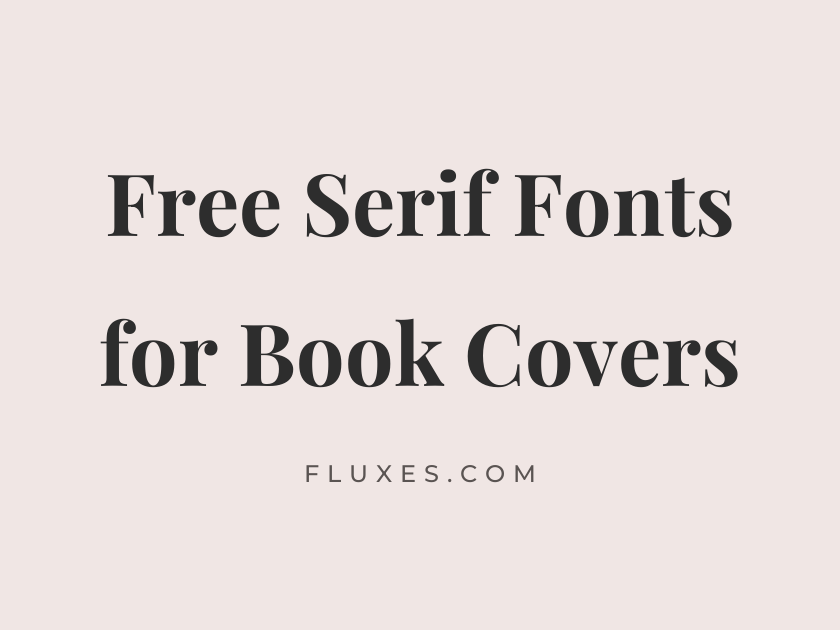
64 Best Free Serif Fonts for Book Covers
Choosing a typeface for a book cover is one of the highest-leverage design decisions a designer or self-published author will make. Serif fonts carry centuries of association with the printed page, and the right one can signal genre, era, and mood before a reader reads a single word of the blurb. This roundup pulls together free serif fonts from Google Fonts that hold up at cover scale, from hairline literary romans to blackletter display faces built for gothic horror.
Whether you are designing a quiet literary novel, a sweeping fantasy epic, a cozy romance, or a nonfiction title that needs to look credible on a shelf, there is a serif here suited to the job. Each one is free to download and license for commercial book design, so you can test them directly against your title and author name before committing.
1. Playfair Display
Playfair Display is the reigning favorite for literary fiction and upmarket romance covers, and for good reason. Its high contrast strokes and sharp, almost engraved terminals give titles an instant sense of prestige, echoing the classic didone type used on prize-winning hardbacks for decades.
It is legible at large display sizes but starts to lose its crisp hairlines when shrunk down for thumbnails, so keep titles short or bump up the size for online store listings. Pair it with EB Garamond or Lora for interior body text and back-cover copy.
2. EB Garamond
Few free fonts carry the warmth of old-style book printing like EB Garamond. Modeled on the sixteenth-century types of Claude Garamont, it feels handset and humane, ideal for historical fiction, literary reprints, and classic titles being reissued with a fresh cover.
Because it was drawn with long-form reading in mind, it also doubles as a dependable choice for interior typesetting, meaning a whole book can share one typographic voice from cover to colophon.
3. Libre Baskerville
Libre Baskerville was reworked specifically for screen legibility, which makes it a safe, trustworthy pick for author websites and ebook covers alike. It reads as serious and literary without tipping into stuffiness.
4. Baskervville
A more faithful revival of Baskerville’s original transitional forms than its cousin above, Baskervville leans softer and more romantic, with delicate italics that suit epistolary novels and quiet family dramas.
5. Lora
Lora balances calligraphic roots with sturdy, contemporary proportions, making it one of the most versatile serifs for both cover titling and back-matter text. It works especially well on rural and pastoral fiction covers.
6. Merriweather
Merriweather was built for screens first, so it holds its shape remarkably well at the small sizes retailers use for online thumbnails. Its sturdy, slightly condensed letterforms give memoir and nonfiction titles a grounded, trustworthy feel.
It is not the most elegant serif on this list, and it can look plain on a cover that wants drama, but that plainness is exactly what makes it dependable for subtitles, author names, and any text that has to stay readable no matter how small it gets rendered.
7. PT Serif
Originally commissioned for Russian public signage, PT Serif carries a clear, no-nonsense structure that reads well in both title and body settings, a solid utility choice for self-published nonfiction.
8. Bitter
Bitter’s slab serifs have just enough weight and squared-off character to suit true crime and investigative nonfiction covers, where a title needs to feel authoritative rather than decorative.
9. Crimson Text
Crimson Text was designed as a free alternative to Garamond-style book fonts, and it shows in its restrained, printerly proportions. It suits poetry collections and quiet literary fiction that wants typography to stay out of the way.
10. Crimson Pro
The updated variable sibling of Crimson Text, Crimson Pro offers a wider weight range that makes it easier to build a full typographic hierarchy from cover title down to back-cover copy without introducing a second family.
11. Vollkorn
Vollkorn means “wholegrain” in German, and the name fits: it is sturdy, warm, and a little rustic, flattering for small-town sagas and literary fiction set in close-knit communities.
12. Source Serif 4
Adobe’s Source Serif 4 is engineered to pair cleanly with Source Sans, which makes it a practical anchor for nonfiction series covers that need consistent typography across many titles.
13. Noto Serif
Letters From a Country That No Longer Exists
Part of Google’s sprawling Noto project, this serif was built for extensive language coverage, a genuine advantage for translated fiction or covers that need to support diacritics and non-Latin scripts alongside English titling.
14. Spectral
A Diary Found in the Attic
Spectral was drawn for on-screen reading, with a calm, slightly cool rhythm that suits contemplative literary fiction and essay collections. Its medium weight in particular looks composed on minimalist cover layouts.
15. Domine
The Weight of Everything We Owned
Domine is a compact, sturdy serif built specifically for headline use, which makes it a reliable pick when a title needs presence but the layout leaves little vertical room to work with.
16. Cardo
Myths Older Than the Mountains Themselves
With roots in classical philology typefaces, Cardo has an academic, ancient-text feel that suits mythology retellings, classics in translation, and scholarly nonfiction. Its generous italics are worth using for subtitles.
• Language support: Latin, Latin Extended, Gothic, Greek, Greek Extended, Hebrew, Old Italic, Runic
17. Old Standard TT
A Correspondence Across Two World Wars
Old Standard TT revives early twentieth-century academic typography and wears its age proudly, with slightly irregular details that suit archival nonfiction, wartime fiction, and biography.
18. Alegreya
The Poet Who Refused to Be Silenced
Alegreya was originally commissioned for literary use, and its calligraphic, humanist rhythm still reads as distinctly bookish. It has a lively, almost theatrical energy that flatters poetry and character-driven literary fiction.
19. IM Fell English
An Account of the Salem Trials
IM Fell English
Digitized from historical specimens of English printing types, IM Fell English carries genuine period texture, uneven, ink-trapped, and slightly worn. It is a strong match for colonial history, gothic fiction, and any cover chasing an antiquarian look, though its idiosyncrasies make it a poor choice for long body copy.
20. Prata
The Heiress and the Empty Estate
Prata’s tall, fine-boned letterforms have a jewelry-catalogue elegance that suits upmarket romance and glamorous historical fiction, especially set large against a lot of negative space.
21. Cinzel
An Empire Built on Broken Oaths
Inspired by classical Roman capitals cut into stone, Cinzel brings an inscriptional grandeur that works beautifully for historical epics, mythology, and epic fantasy series titling. It is set in capitals only, so it should be reserved for short titles rather than long sentences.
Its formality also makes it a natural fit for nonfiction on ancient history, classics, or philosophy, where a cover benefits from looking carved rather than printed.
22. Cinzel Decorative
The Crown That Demanded Blood
The ornamented cousin of Cinzel adds flared serifs and decorative flourishes that suit fantasy romance and richly art-directed epic fantasy covers, though it is best used sparingly, on a single word or short title, since the ornamentation gets noisy in longer settings.
23. Marcellus
Gods, Ghosts, and the Space Between
Marcellus is quieter and more restrained than most classical-revival serifs, with a smooth, understated elegance that suits speculative fiction covers wanting gravity without shouting.
24. Rozha One
A Kingdom Carved From Ash
Rozha One fuses Devanagari-inspired curves with a serif structure, giving it a distinctive, slightly exotic character that stands out on fantasy and cross-cultural literary fiction covers.
25. Yeseva One
She Wore Her Sorrow Like a Crown
Yeseva One has a bold, feminine curviness that has become a familiar favorite on wedding stationery, and that same warmth translates nicely to romance and women’s fiction titling.
26. Fraunces
A Love Story Told Backwards
Fraunces is one of the more expressive serifs to arrive on Google Fonts in recent years, with a soft, wet-ink quality in its curves that feels handcrafted rather than mechanical. Its adjustable optical size and “wonky” alternate styles give designers real range, from a restrained upmarket romance cover to something playful and illustrative for contemporary fiction.
Because it spans such a wide personality range within one family, Fraunces is worth trying before reaching for a second display face; it may cover both the title and a supporting tagline on its own.
27. Bodoni Moda
The Socialite Who Vanished at Midnight
This modern variable revival of Bodoni brings back the extreme thick-thin contrast of high-fashion editorial type, which suits glamorous thrillers, celebrity memoirs, and anything set in the world of fashion or old Hollywood. Keep it large; that contrast disappears into a blur at small sizes.
28. Abril Fatface
The Party That Ended in Scandal
Abril Fatface is unapologetically heavy and theatrical, built for magazine covers and equally at home on commercial women’s fiction and bold nonfiction titles that want to dominate a shelf.
29. Unna
Recipes From My Grandmother's Kitchen
Unna
Unna has a cozy, storybook charm somewhere between a serif and a slab, suiting cookbooks, memoir, and gentle contemporary fiction that wants warmth over drama.
30. Gilda Display
The Actress Who Rewrote Her Own Ending
Gilda Display
Gilda Display carries a vintage, art-deco-adjacent glamour reminiscent of old film posters, a strong fit for historical fiction set in the twentieth century.
31. Petrona
Whispers Behind the Manor Walls
Petrona
Petrona reads as refined and slightly formal without the extreme contrast of a didone, making it a flexible option for gothic romance and historical mystery covers that need elegance at moderate sizes.
32. Frank Ruhl Libre
A Family History Written in Silence
Originating from a classic Hebrew typeface tradition, Frank Ruhl Libre has a distinctive, slightly angular warmth that suits literary fiction, family sagas, and books exploring cultural identity.
• Styles: 7 weights (Light to Black)
33. Literata
Every Ending Hides a Beginning
Literata
Designed by Google specifically for ebook reading, Literata is a dependable, screen-friendly serif that looks equally composed on a printed spine and a Kindle thumbnail, a genuinely practical choice for indie authors publishing across formats.
34. Piazzolla
The Tango That Started It All
Piazzolla
Piazzolla has a warm, slightly rounded Latin American character, fitting for novels set in South America or stories built around music and dance.
35. Zilla Slab
The Startup That Broke the Rules
Zilla Slab’s confident, squared-off letterforms give business and self-help nonfiction covers a modern, competent feel without drifting into corporate blandness.
36. Arvo
Field Notes From the Edge of the World
Arvo is a geometric slab with a friendly, slightly retro feel, well suited to travel writing, adventure memoir, and outdoor-themed nonfiction.
37. Rokkitt
Lessons I Learned the Hard Way
Rokkitt
Rokkitt’s rounded slab serifs feel approachable and conversational, a comfortable match for self-help and personal-development titles that want authority without severity.
38. Aleo
The Truth About Making It on Your Own
Aleo
Aleo pairs slab sturdiness with slightly humanist curves, giving it a versatile, businesslike warmth useful for entrepreneurship and career nonfiction covers.
39. Vidaloka
The Detective's Last Unsolved Case
Vidaloka
Vidaloka has a moody, noir-inflected elegance, its slightly condensed capitals and dark strokes feel right at home on hardboiled crime fiction and detective series covers.
40. Amiri
A Thousand Nights of Untold Stories
Amiri
Amiri is a classical Arabic typeface with a Latin companion set, offering genuine calligraphic authority for stories rooted in Middle Eastern or Islamic history, folklore, and culture.
• Language support: Latin, Latin Extended, Arabic
41. Gentium Book Plus
A Language on the Verge of Extinction
Gentium Book Plus
Built originally for multilingual scholarly publishing, Gentium Book Plus has broad script support and a warm, readable structure, a practical choice for linguistics, anthropology, and translated literature.
42. Neuton
What the River Remembered
Neuton
Neuton’s wide range of weights, from feather-light to near-black, gives it real flexibility for building a full cover hierarchy from title to tagline within one family.
• Styles: 6 styles (5 weights plus italics)
43. Bree Serif
Adventures of a Reluctant Hero
Bree Serif
Bree Serif has a rounded, friendly informality that suits middle-grade fiction and light contemporary novels aimed at younger or crossover readers.
44. Sorts Mill Goudy
The Printer's Daughter
Sorts Mill Goudy
Named for Frederic Goudy, this revival channels his warm, slightly irregular old-style forms, a fitting choice for books about printing, publishing, or the history of the written word itself.
45. Goudy Bookletter 1911
Tales Collected by Firelight
Goudy Bookletter 1911
This is a close, freely licensed cousin to Goudy’s classic book types, carrying genuine early-twentieth-century book design character straight onto a modern cover.
46. Fanwood Text
A Scholar's Guide to Forgotten Places
Fanwood Text
Fanwood Text is a compact old-style serif well suited to academic nonfiction and reissued classics where the goal is understated authority rather than display drama.
47. Radley
The Letters She Never Answered
Radley
Radley’s delicate, slightly hand-drawn quality gives it a personal, diary-like intimacy that flatters quiet literary fiction and epistolary novels.
48. Caudex
Prophecies Written in a Dead Tongue
Caudex
Caudex has a slightly archaic, inscriptional feel that suits fantasy worldbuilding and ancient-history nonfiction alike, without tipping into the full theatricality of a fantasy display face.
• Language support: Latin, Latin Extended, Greek, Greek Extended, Runic, Vietnamese
49. Cambo
The Garden Where Time Stood Still
Cambo
Cambo is soft, rounded, and unhurried, an easy match for gentle literary fiction and pastoral memoir covers that favor calm over drama.
50. Kreon
Building a Life From the Ground Up
Kreon
Kreon’s clean, slightly geometric slab structure gives it a modern editorial feel, useful for contemporary nonfiction and biography covers that want a fresh, uncluttered look.
51. Bentham
A Philosophy for the Common Reader
Bentham
Bentham has a formal, almost legal-document precision, appropriate for philosophy, ethics, and political nonfiction that wants to look considered and serious.
52. Coustard
The Fighter Who Would Not Quit
Coustard
Coustard is heavy, blunt, and confident, a strong choice for sports memoir and underdog nonfiction where the title needs to hit hard on a crowded shelf.
• Styles: 2 weights (Regular, Black)
53. Amethysta
The Chemist's Forbidden Formula
Amethysta
Amethysta’s slightly rounded, old-style curves give it a warm scientific-journal quality, an interesting option for popular science covers that want approachability over sterility.
54. DM Serif Display
An Affair Kept in the Dark
DM Serif Display has a bold, fashionable didone contrast similar to Playfair Display but with slightly more compact proportions, useful when a title is long and space is tight.
55. DM Serif Text
Everything Her Mother Never Said
DM Serif Text
The text-optimized companion to the display cut above, this one holds up better at smaller sizes, making it a sensible choice for subtitles and back-cover blurbs that need to match the cover’s display type.
56. Lustria
The Botanist's Last Expedition
Lustria
Lustria has a crisp, slightly industrial old-style character reminiscent of early scientific printing, fitting for natural history and expedition narratives.
57. Metamorphous
The Sorcerer's Bargain With Death
Metamorphous
Metamorphous leans hard into ornate, medieval-inspired fantasy styling, dense, angular, and unmistakably genre. It is a display face only, so reserve it for a short title and let a plain serif handle everything else on the cover.
58. Pirata One
The Curse That Sank a Thousand Ships
Pirata One’s jagged, weathered blackletter-adjacent forms were practically made for pirate adventure and dark fantasy titling, though its intensity means it works best in small doses.
59. UnifrakturMaguntia
A Gothic Tale of the Undead
This is a genuine blackletter revival, dense and dramatic, the closest thing on Google Fonts to the old German gothic types associated with horror and dark fantasy publishing. Use it sparingly and only at larger sizes, since its heavy texture becomes illegible fast once a cover shrinks to a store thumbnail.
Balance it with a clean, neutral serif or sans for any supporting text; a whole cover set in this face would overwhelm most readers.
60. Bevan
The General Who Refused to Surrender
Bevan is a bold slab with a stamped, almost military stencil quality, well suited to war fiction and history covers that want a title with real physical weight.
61. Yrsa
Sagas Carried Across the Northern Sea
Yrsa
Yrsa’s Nordic origins and slightly cool, sturdy character make it a natural fit for Scandinavian noir and viking-era historical fiction.
62. Ibarra Real Nova
A Portrait Painted in Two Languages
Ibarra Real Nova
Based on an eighteenth-century Spanish typeface, Ibarra Real Nova brings a refined, old-world literary feel that suits translated fiction and Latin American literature especially well.
63. Newsreader
The Editorial That Started a Revolution
Newsreader was designed for long-form digital reading, giving it a calm, journalistic authority that flatters narrative nonfiction, investigative journalism collections, and current-affairs titles.
64. Faustina
The Empress Who Ruled in Secret
Faustina
Faustina carries a formal, classical poise with just enough personality in its curves to keep historical fiction and biography covers from feeling generic.
Pairing tips for serif book cover typography
Keep display and body type from competing. If the title uses a dramatic high-contrast serif like Playfair Display or Bodoni Moda, let the author name and tagline sit in something quieter, such as EB Garamond or PT Serif.
Test every cover font at thumbnail size early. A typeface that looks stunning at full print size can collapse into mush on an online store listing, which is where most readers will actually meet the cover first.
For genre fiction, let the font do some of the storytelling. A blackletter or fantasy display face like UnifrakturMaguntia or Metamorphous signals horror and fantasy instantly, while a restrained old-style serif like Cardo or Fanwood Text tells readers to expect something literary.
Limit yourself to two type families per cover wherever possible. One handles the title with personality, the other handles everything else with clarity, and that discipline almost always reads as more professional than a cover built from several competing display faces.
With this many free, genuinely well-made serif options available on Google Fonts, there is rarely a good reason to default to a paid or system font for a book cover. Download a handful that suit your genre, set your actual title in each one, and let the strongest candidate reveal itself against your own artwork.